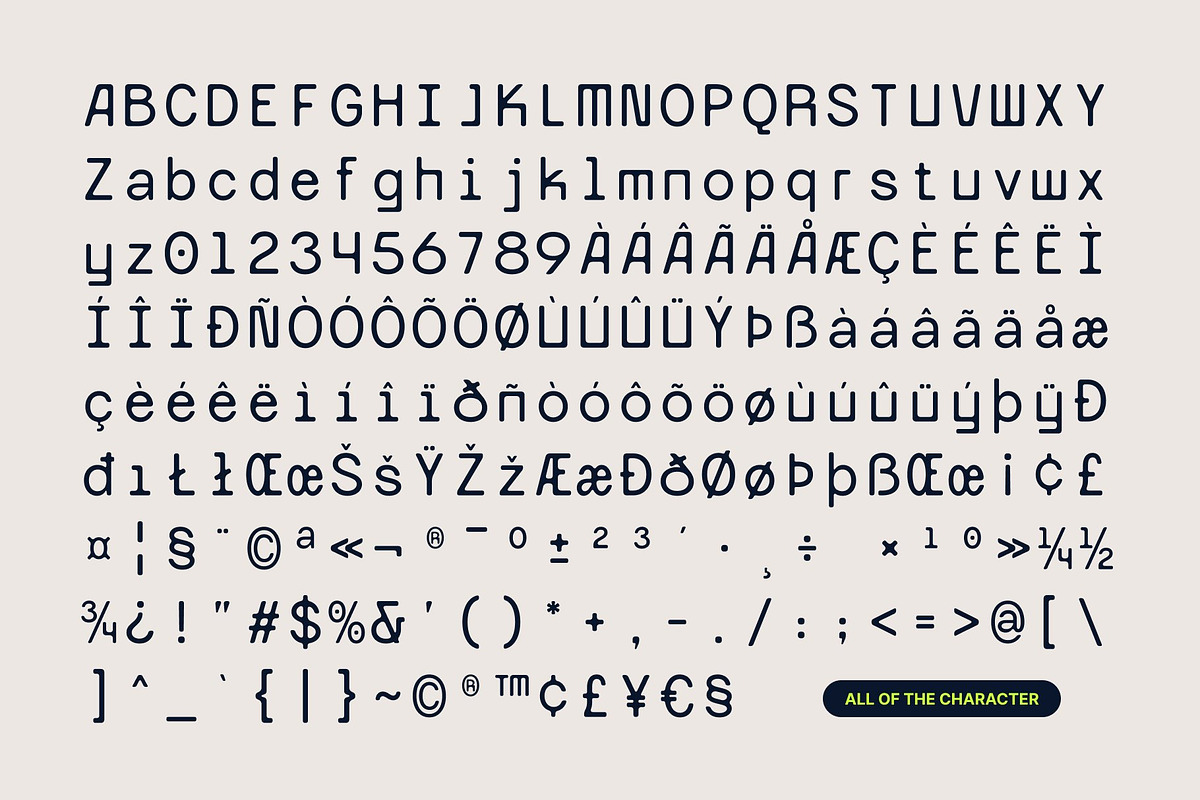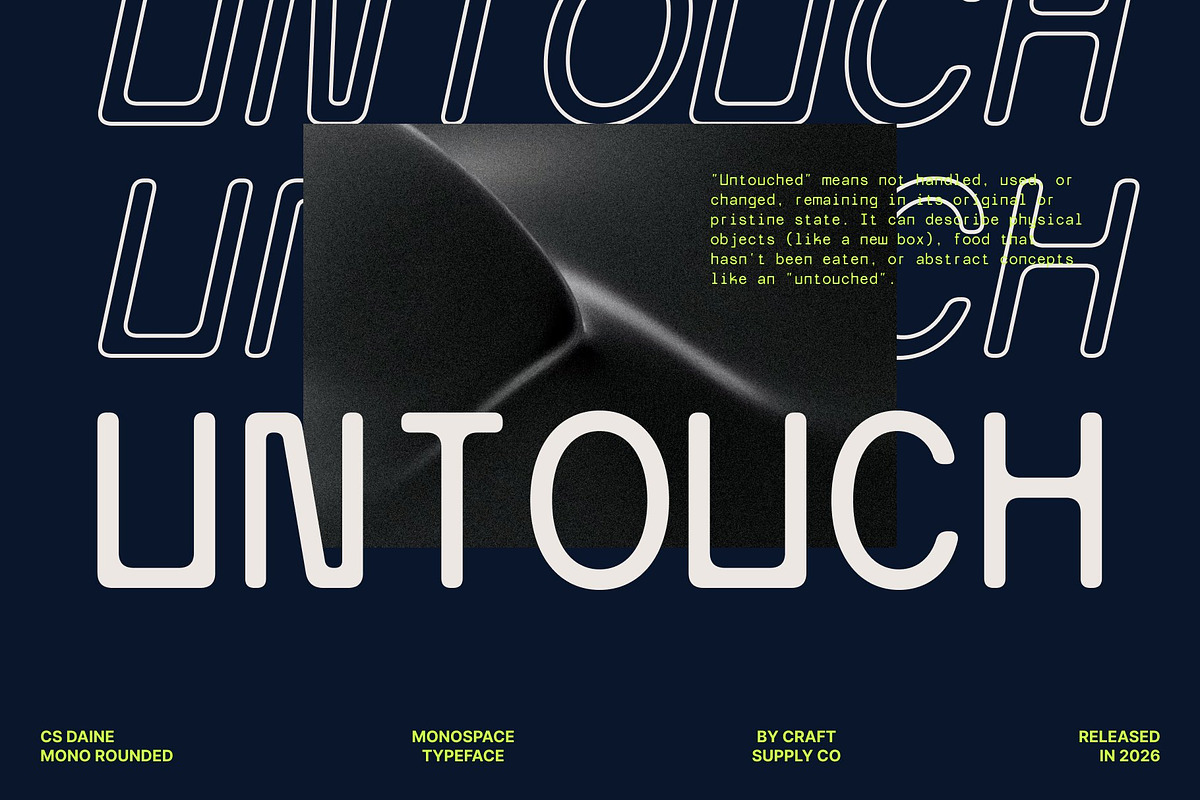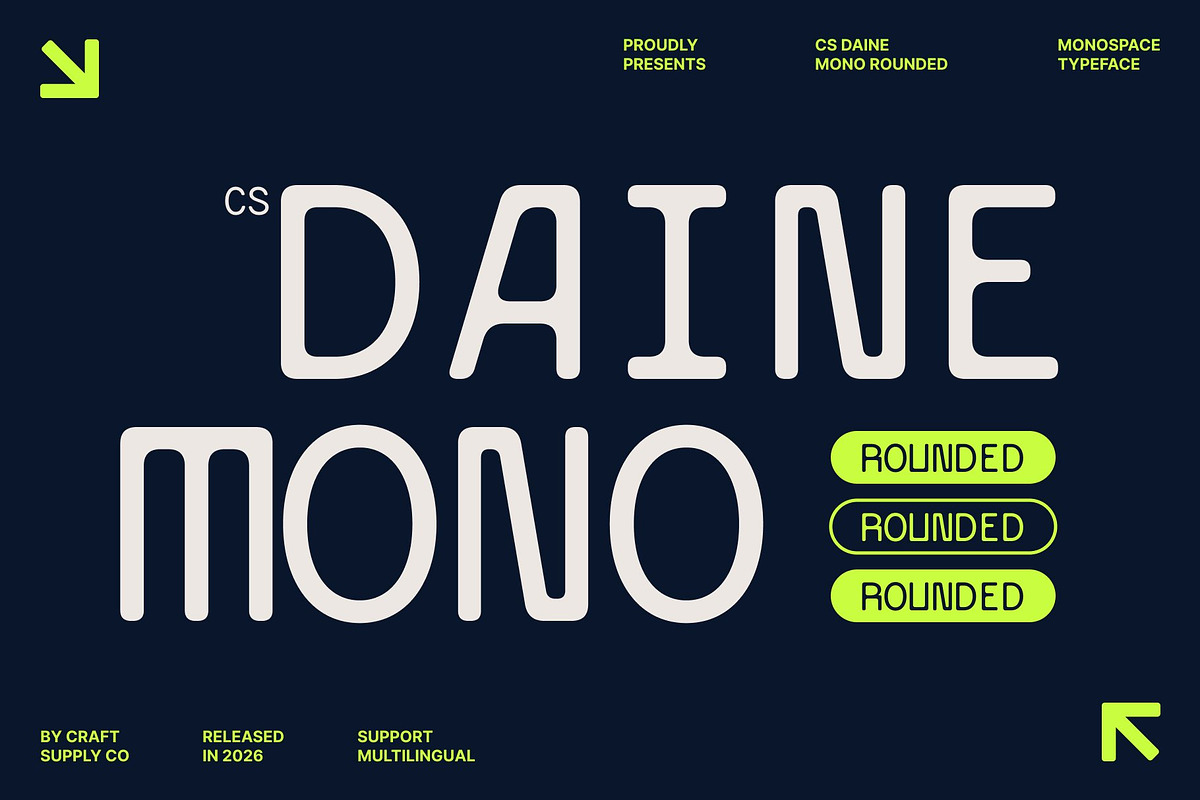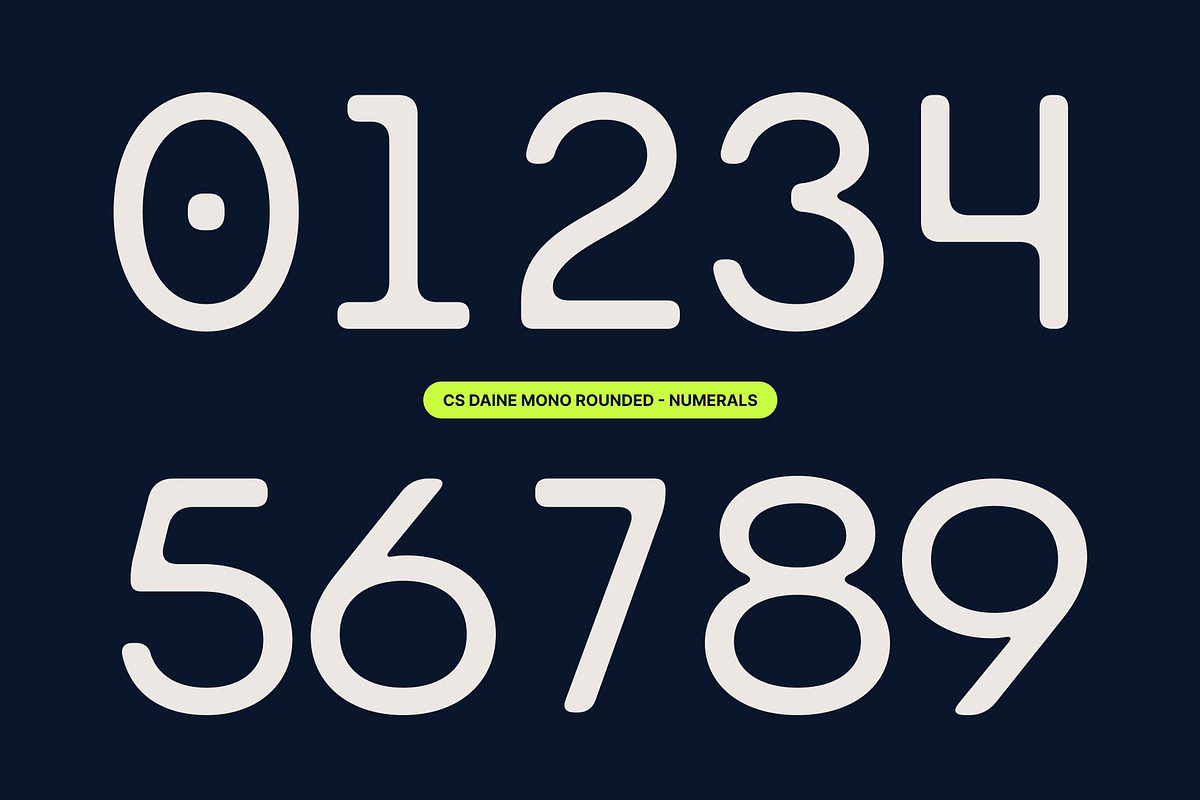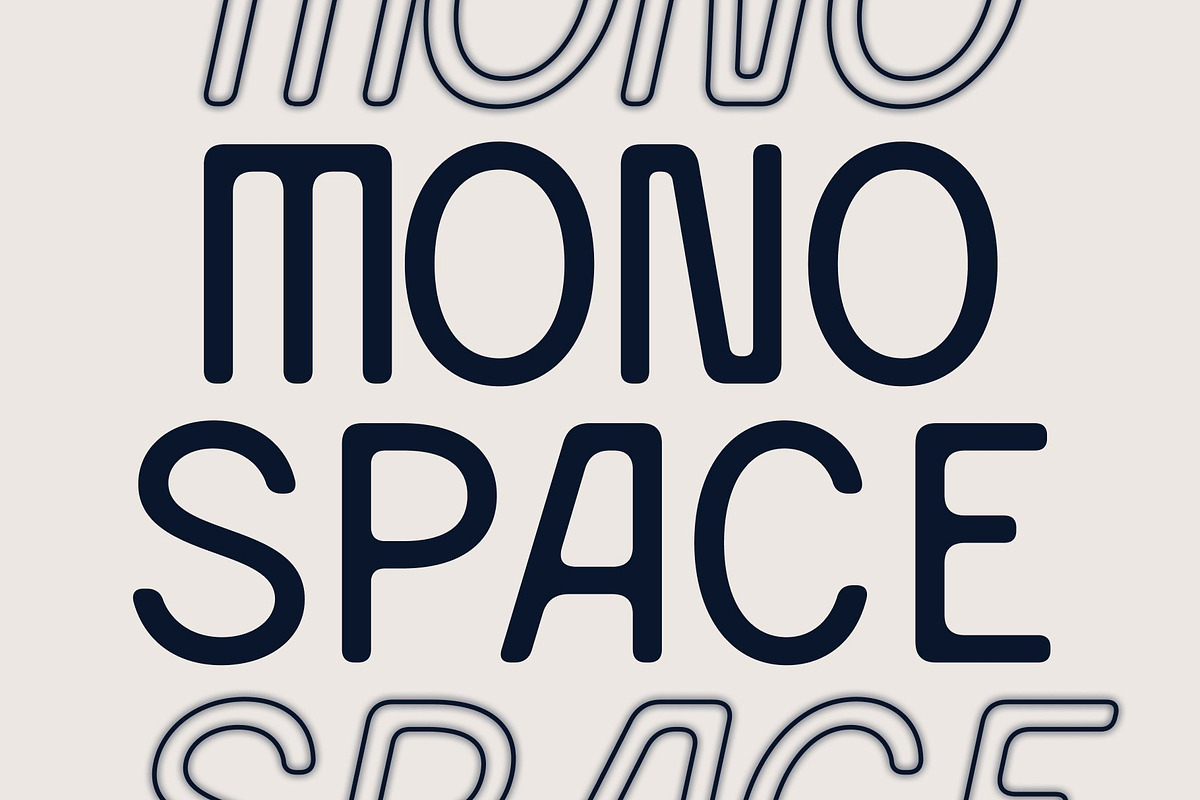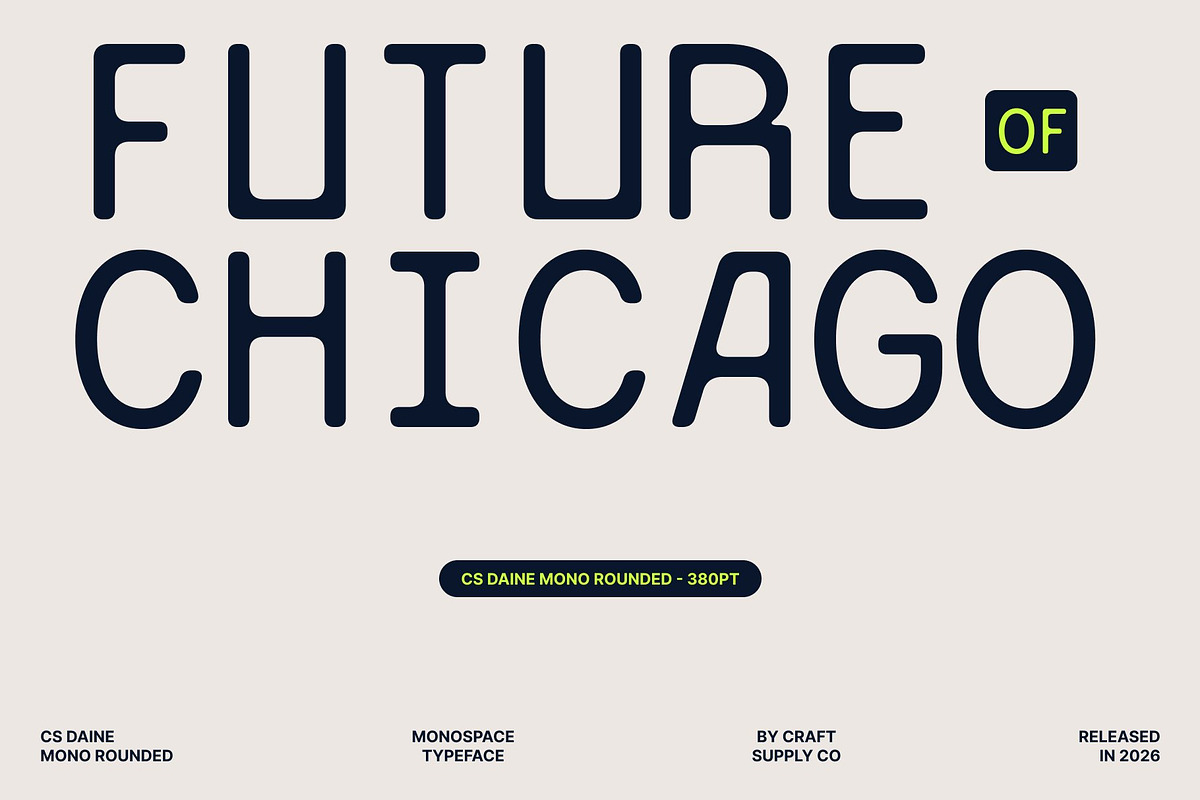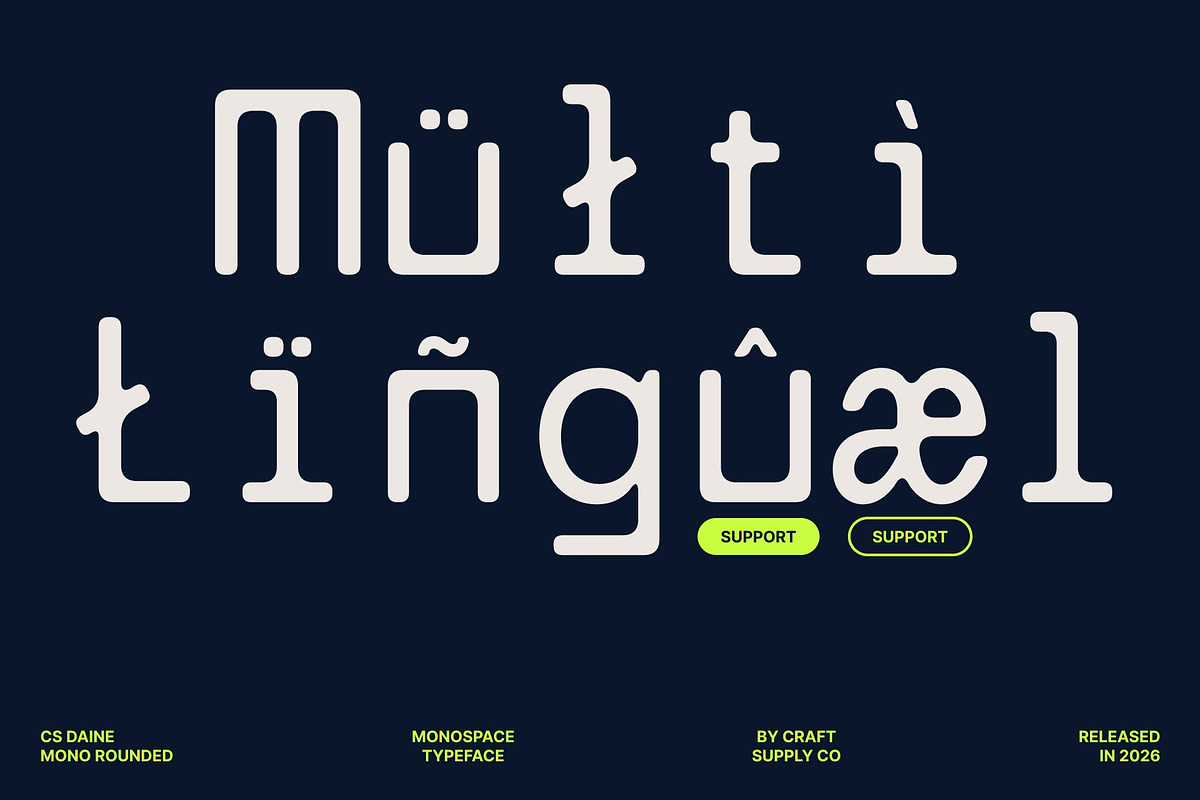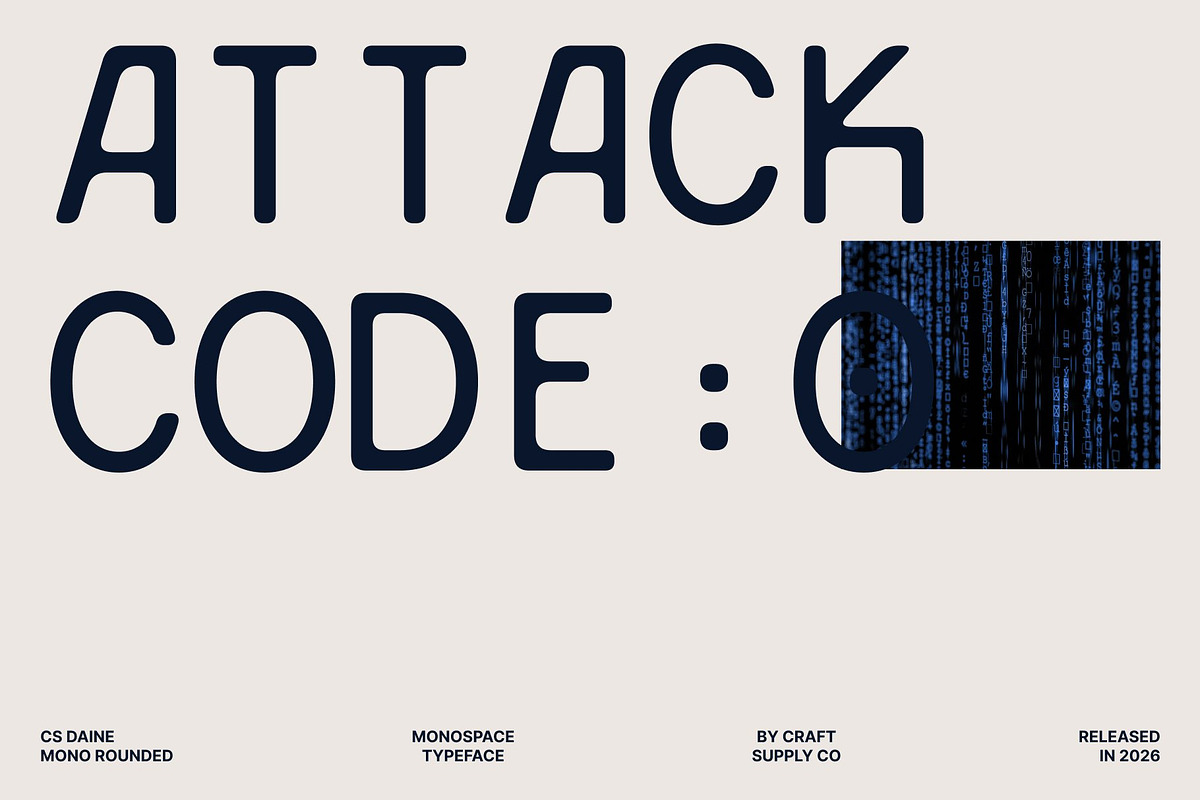
CS Daine Mono Rounded
CS Daine Monos Rounded – Precision Meets Modern Aesthetics
Monospaced Structure with Geometric Clarity This is a modern sans serif font built on a clean, geometric, and monospaced foundation. Each character is designed with equal width, creating a neat, structured, and perfectly aligned layout. This consistent construction enhances readability and makes it especially effective for technical contexts such as programming, coding, and data presentation.
Modern Professionalism with Rounded Softness Defined by balanced geometric forms, straight lines, and smooth curves, this font delivers a contemporary and professional presence. The rounded terminals soften its structured framework, adding a clean, friendly, and relaxed impression. The result is a typeface that feels modern and precise without appearing rigid or cold.
Reliable for Technical and Creative Use Widely suited for software interfaces, code editors, documentation, and digital systems, this font ensures clarity where alignment and uniformity are essential. At the same time, its minimalist yet approachable aesthetic makes it adaptable for branding, UI design, packaging, headlines, and other contemporary visual projects.
Structured, Clear, and Versatile Combining precision with warmth, this font bridges the gap between technical functionality and modern design appeal. It delivers a polished, professional look while maintaining a soft and accessible character across both digital and print media.